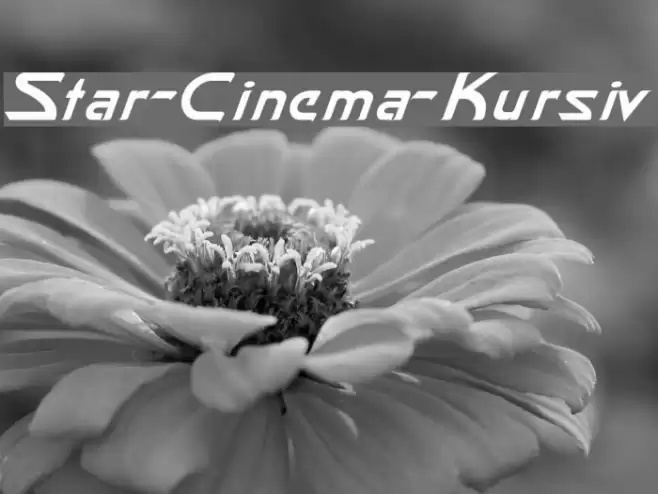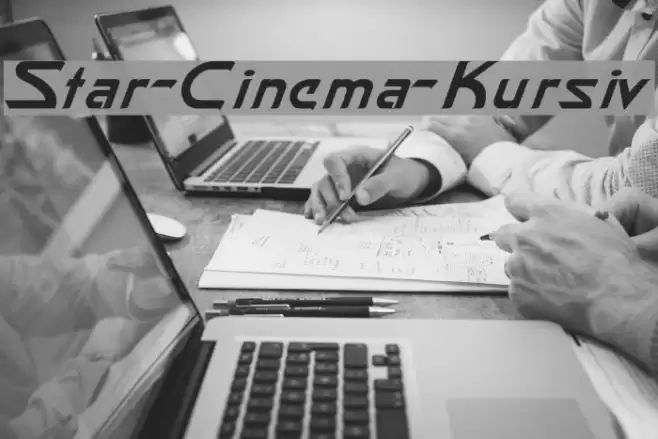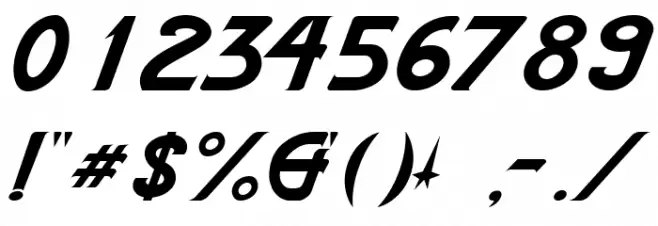
Star-Cinema-Kursiv Font
Star-Cinema-Kursiv Description
This font features a dynamic and modern italic style, characterized by its slanted and angular letterforms. The uppercase and lowercase letters maintain a consistent forward-leaning posture, giving the typeface a sense of motion and energy. The strokes are clean and sharp, with a medium contrast between thick and thin lines, enhancing readability while maintaining a sleek appearance. The numerals and special characters are designed to complement the alphabet, with a similar slant and angularity, ensuring a cohesive look across all characters.
A modern italic font with angular, slanted letterforms and medium contrast from Uncategorized fonts.
- Proposed Projects: Ideal for branding, advertising, and poster design where a modern and dynamic feel is desired.
- Use Case: Headlines, Logos, Branding